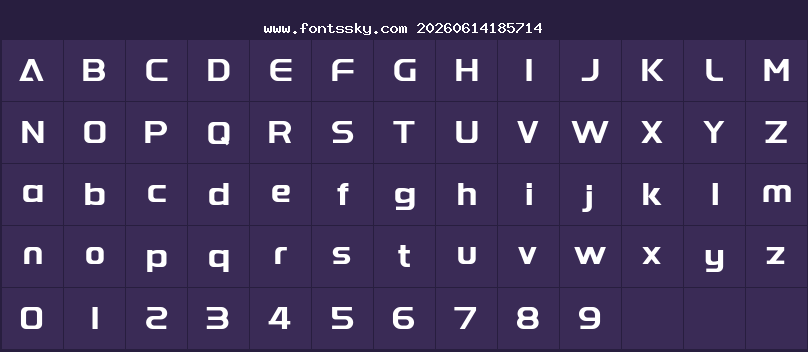
字体圈欣意LOGO体 Preview
• Font Name: 字体圈欣意LOGO体
• Font ID: 1.000;ZLW ;Fontquan-XinYilogoTi-Regular
• Full Font Name: Fontquan-XinYilogoTi Regular
• PostScript Name: Fontquan-XinYilogoTi-Regular
• Character Count: 76
• Designer: 微信公众号:字体圈
• Manufacturer: 左字字库zofont
About 字体圈欣意LOGO体.ttf
字体圈欣意LOGO体.ttf is a modern, elegant sans-serif font designed for ultimate readability and visual harmony. Perfect for branding, headlines, web design, and print materials.